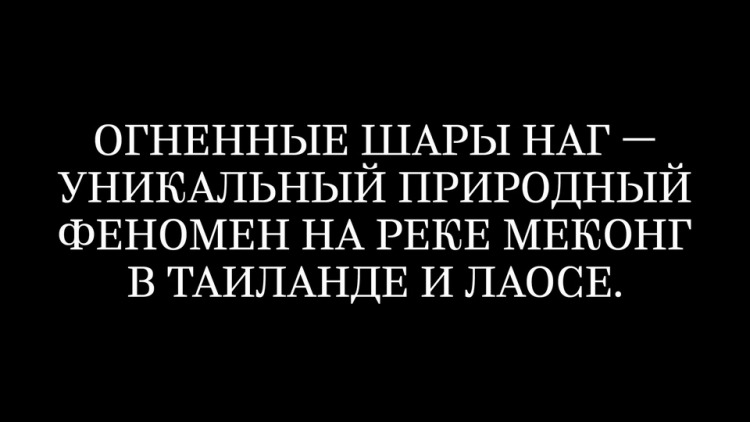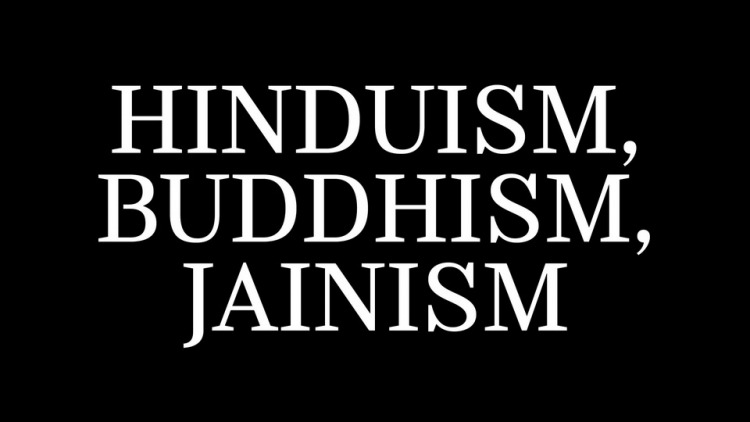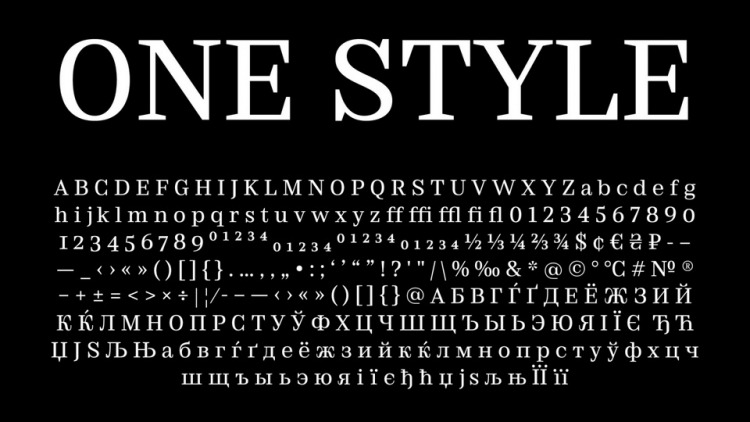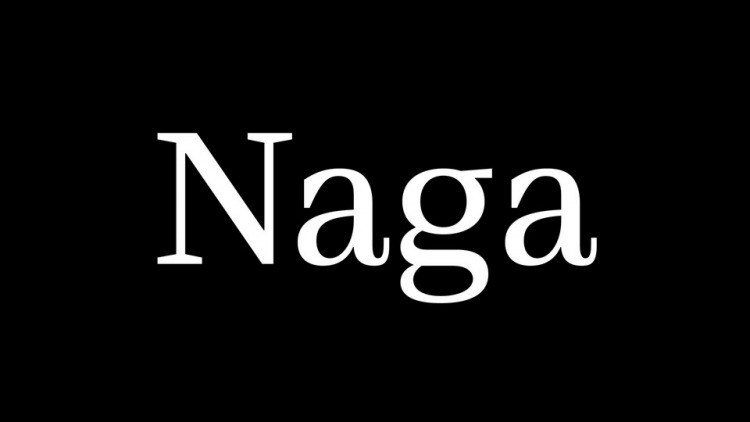
Naga Serif Font
This is a display serif font that strikes the perfect balance between classic and modern, combining serif and sans serif styles in a unique way. The font is in development process, so far it has only one style and a limited number of glyphs, but it is already capable of performing an extensive range of design tasks.